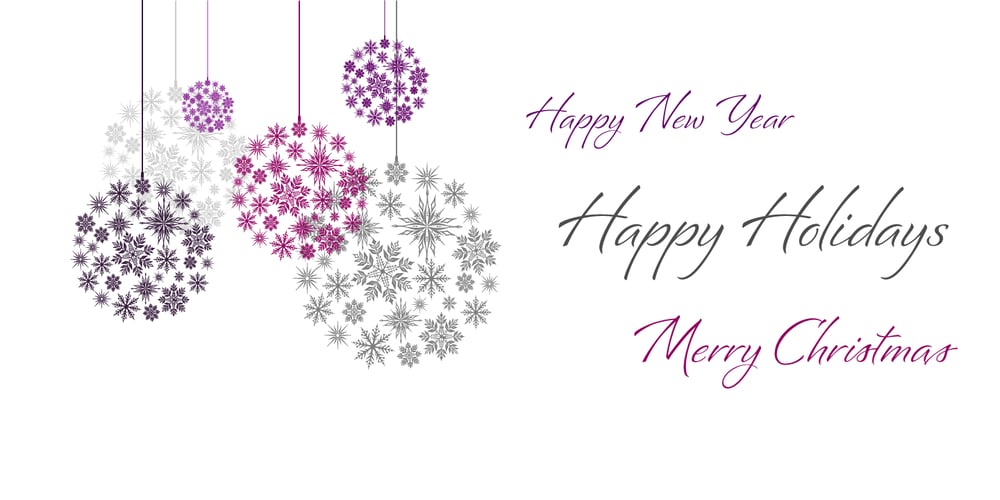
Bianca Font Family was designed by Laura Worthington and published by Laura Worthington Design. Bianca contains 1 styles and family package options. Bianca is a semi-connected script whose slim strokes, gently curving verticals, and big, beautiful capitals convey a fashionable, feminine style. Customize with over 50 alternate glyphs to add variation to your design. See what’s included! http://bit.ly/2cdTMIe *NOTE* Basic versions DO NOT include swashes, alternates or ornaments This font has been specially coded for access of all the swashes, alternates and ornaments without the need for professional design software! Info and instructions here: http://lauraworthingtontype.com/faqs/